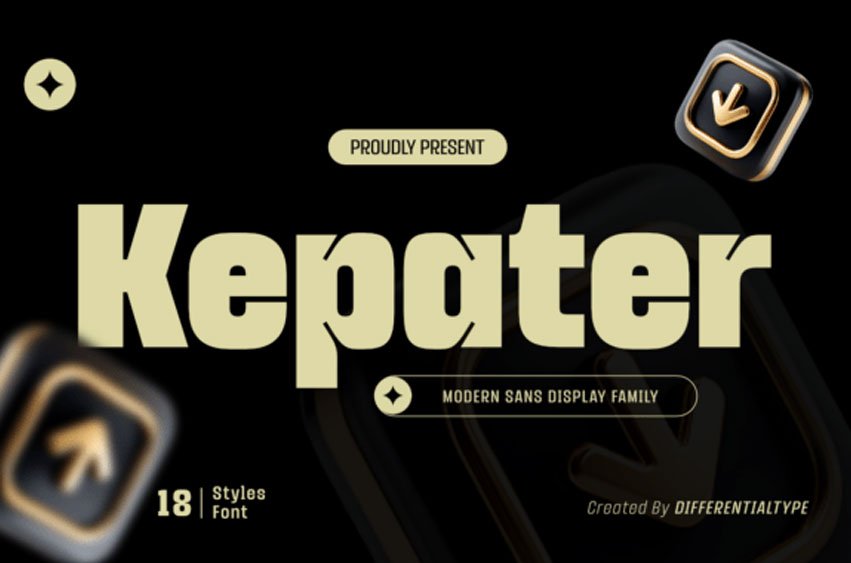
Kepater Font is a modern sans-serif family meticulously designed to strike the perfect balance between functional clarity and a strong contemporary aesthetic.
With its clean character profiles and precise proportions, this typeface offers an authoritative yet flexible presence suitable for a wide range of creative needs. Its minimalist design approach ensures exceptional legibility across various platforms, making it a visual identity that stands out with effortless sophistication for a global audience.